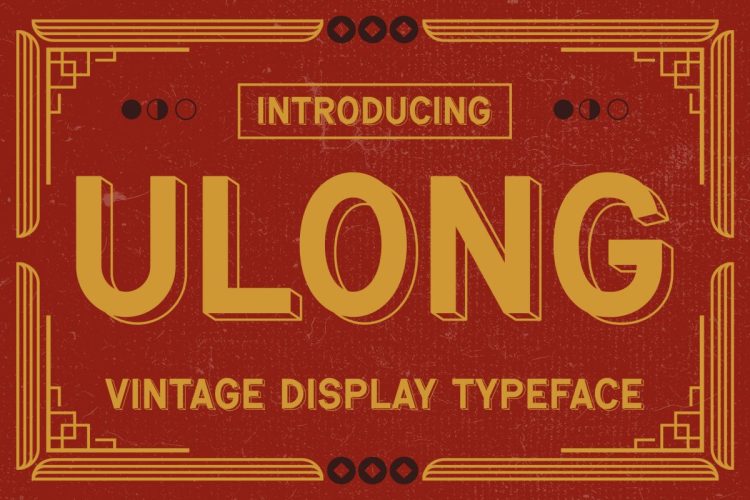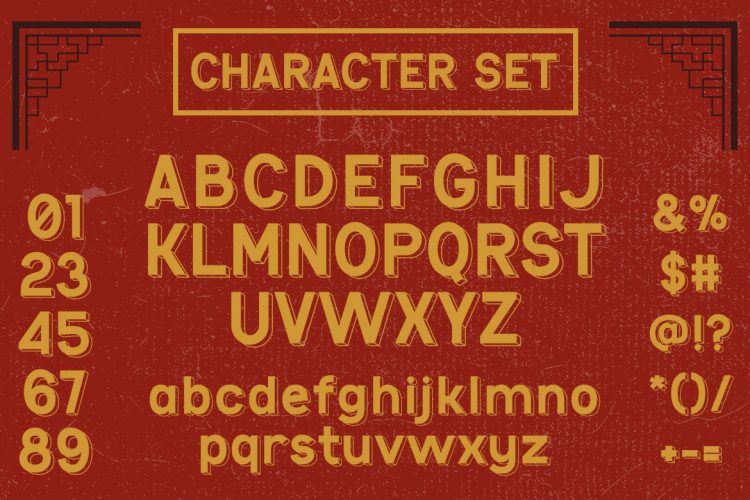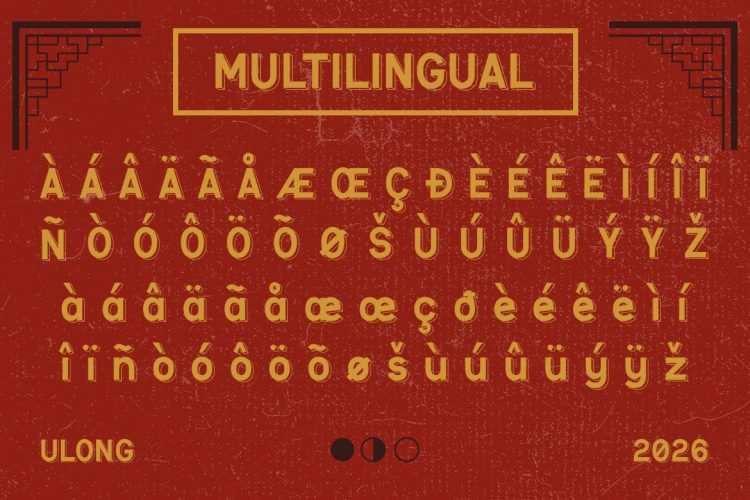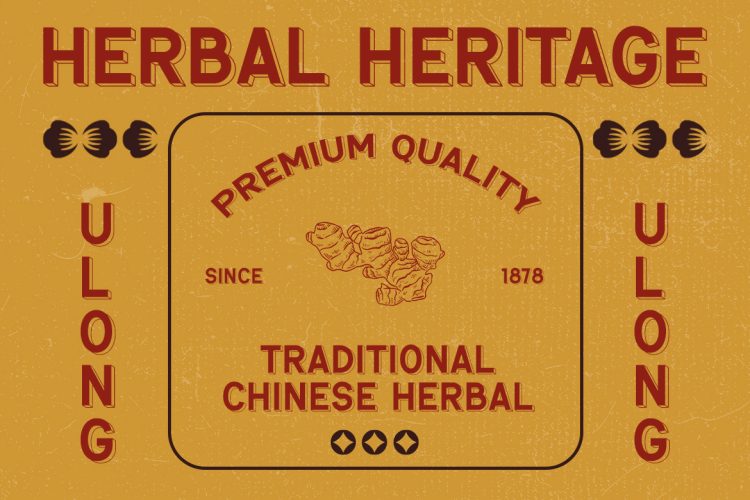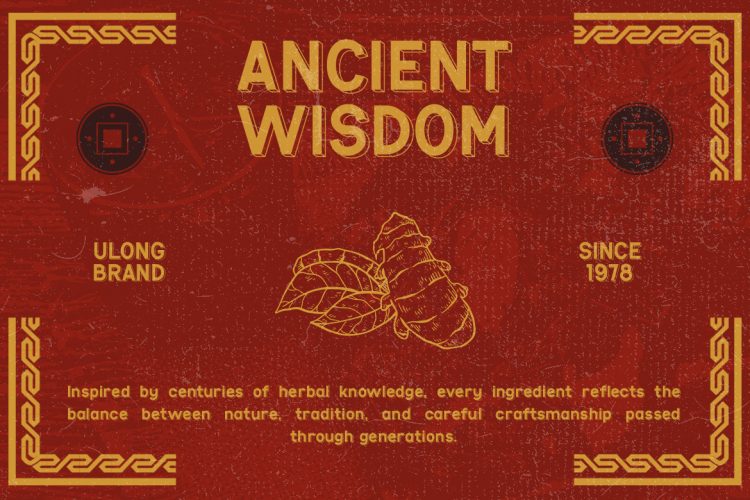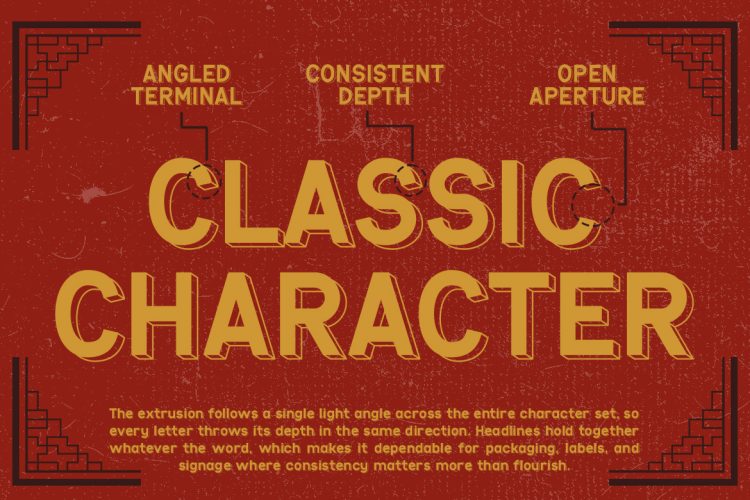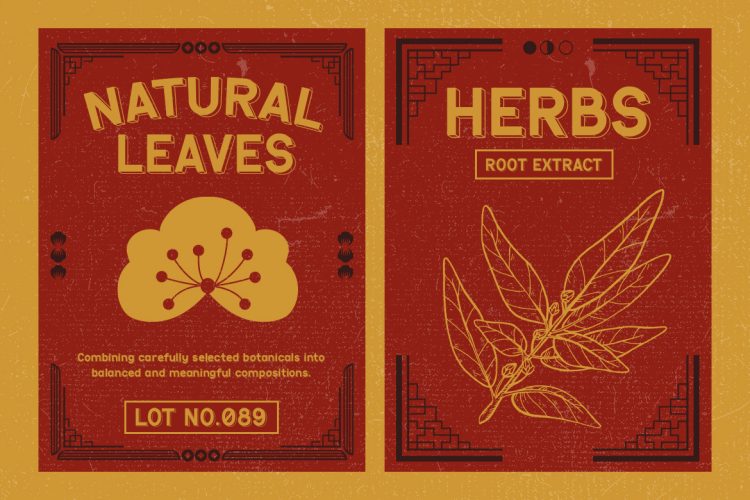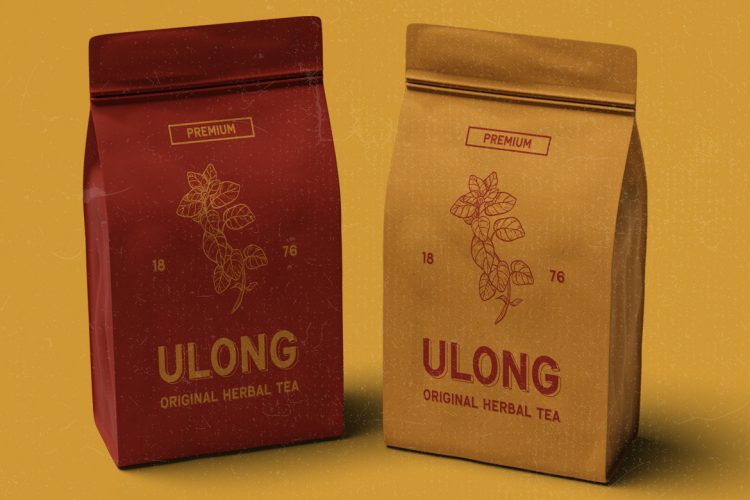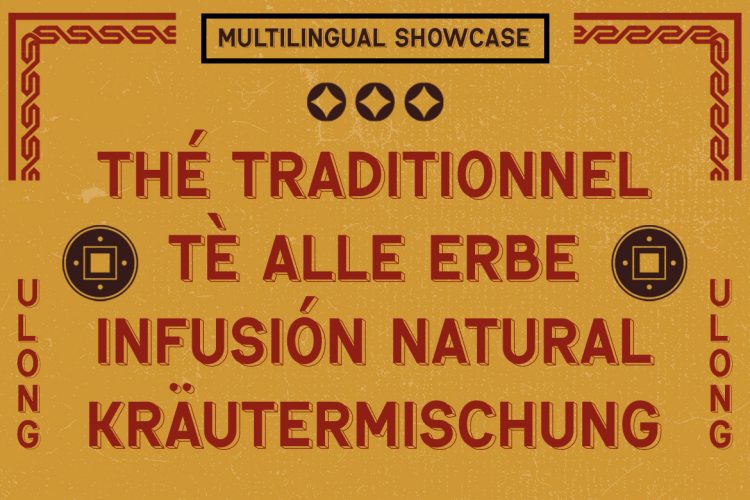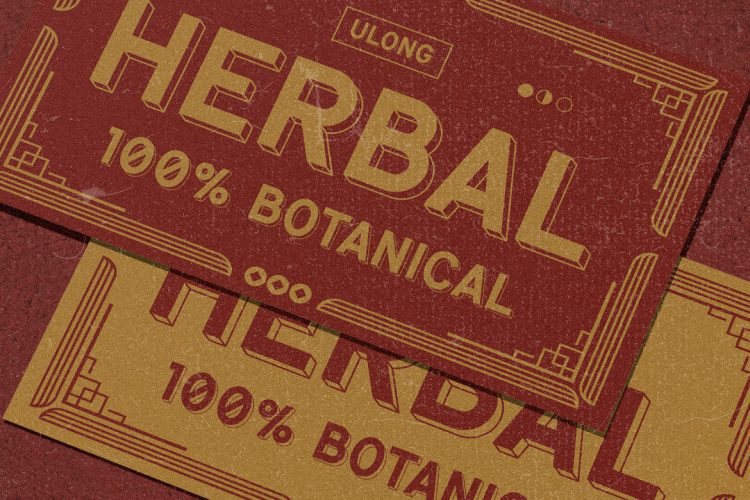
Ulong โ Classic, Authentic & Rich in Tradition
Vintage Font Ulong is a refined display font inspired by traditional heritage packaging, antique labels, and classic oriental craftsmanship. Not only does it feature elegant vintage letterforms, but it also blends geometric precision with decorative charm to create a timeless visual identity. Moreover, its balanced proportions and clean structure evoke the sophistication of old tea houses, premium herbal products, and historical branding. In addition, the bold yet graceful characters offer excellent readability across both large headlines and product labels. Furthermore, every letter carries a sense of authenticity and craftsmanship. As a result, your packaging, branding, and editorial designs instantly gain a premium vintage appeal. Meanwhile, its nostalgic style creates trust and tradition while remaining suitable for modern applications. Additionally, with support for 67 languages, Ulong helps brands communicate beautifully across international markets. Therefore, it is an outstanding choice for projects that celebrate history, quality, and elegance.
Vintage Font Ulong Perfect For
Ulong is crafted for brands that value heritage, authenticity, and timeless design. Whether you’re designing tea packaging, herbal products, coffee labels, spice branding, luxury food packaging, cosmetic labels, restaurant menus, vintage logos, or editorial layouts, this font delivers a sophisticated classic character. Likewise, its decorative influence enhances every composition with refined details. Furthermore, its structured letterforms provide a professional appearance. Consequently, your brand becomes more memorable and trustworthy. At the same time, Ulong adapts seamlessly to both print and digital projects.
Who Can Use It?
- Tea & Herbal Brands
- Coffee & Beverage Companies
- Organic Product Businesses
- Luxury Food Packaging Designers
- Cosmetic & Wellness Brands
- Restaurant & Cafรฉ Owners
- Branding Agencies
- Graphic Designers
- Premium Product Manufacturers
Honor Tradition with Ulong
If you want your designs to express authenticity, craftsmanship, and timeless elegance, Vintage Font Ulong is the perfect addition to your collection. Therefore, choose Ulong today. Not only will it elevate your branding with a premium vintage atmosphere, but it will also create a lasting impression that reflects quality and heritage. Ultimately, Ulong transforms every design into a story of tradition, refinement, and enduring style.